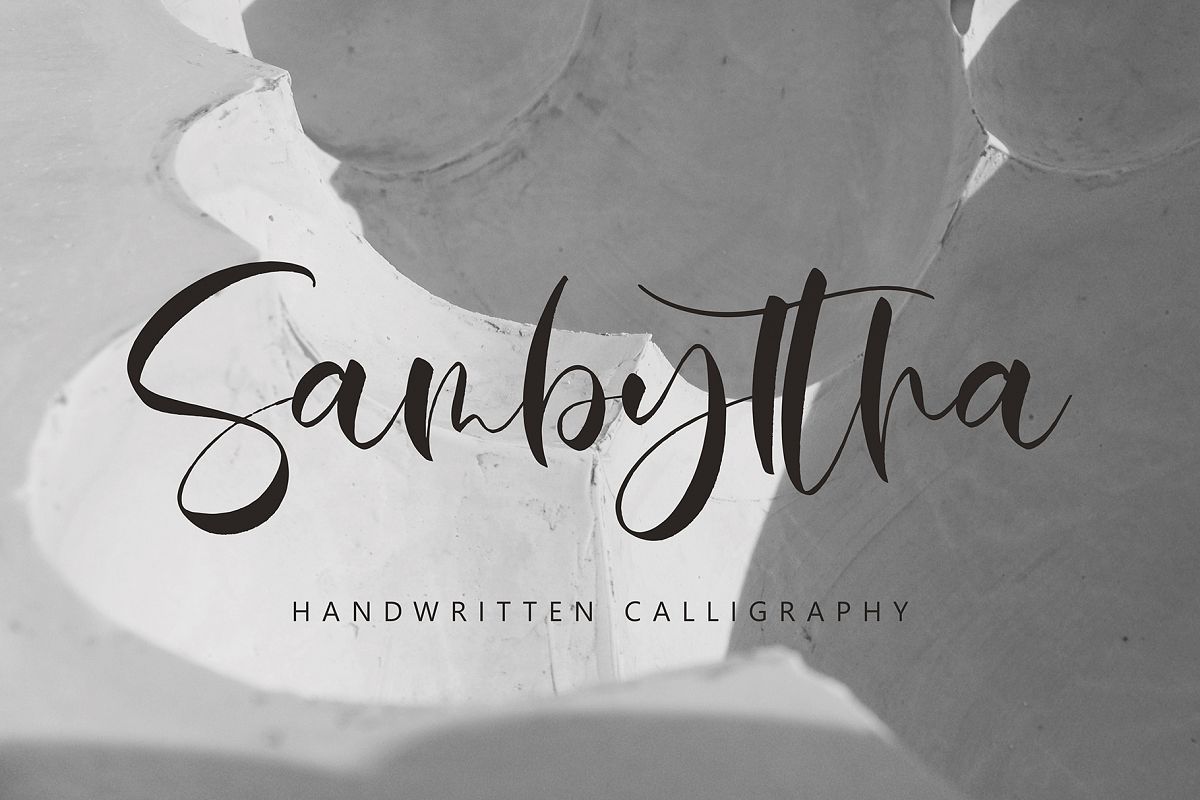
Sambyttha
Sambyttha , this font will perfect for many different project ex: quotes, logo, blog header, poster, banding, fashion, apparel, letter, invitation, stationery, etc...